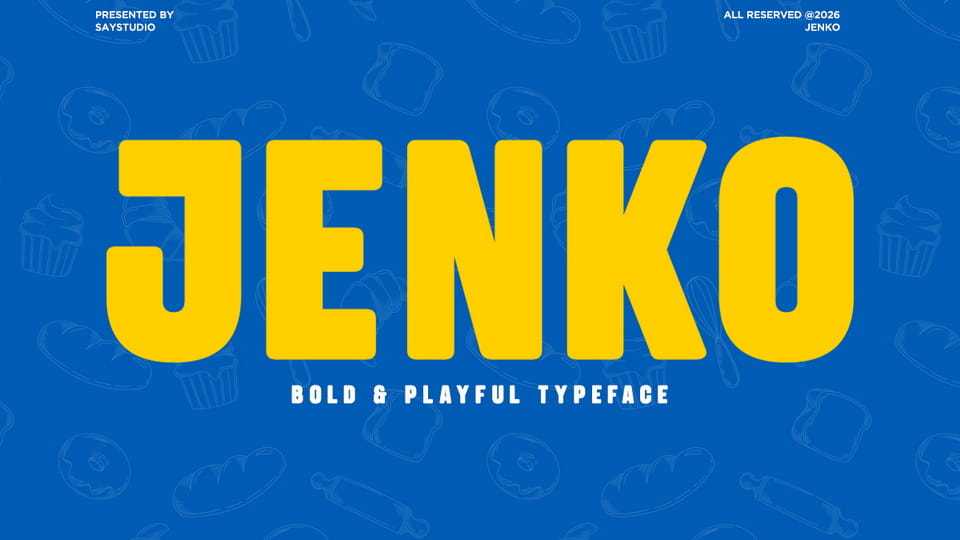
Download Jenko font, a bold sans serif typeface designed to bring strong personality and playful energy into modern design projects. With its thick letterforms, clean structure, and rounded edges